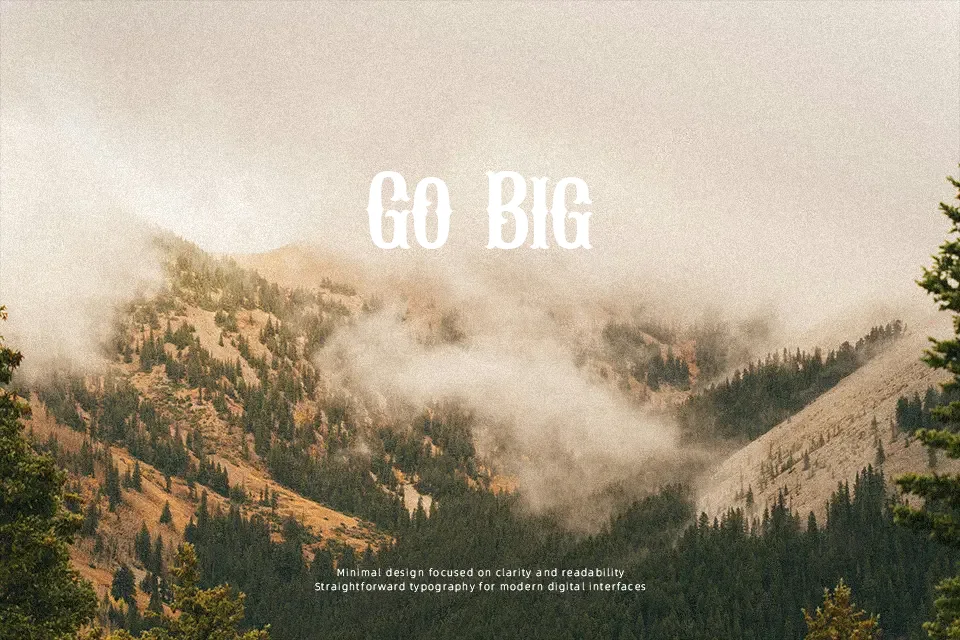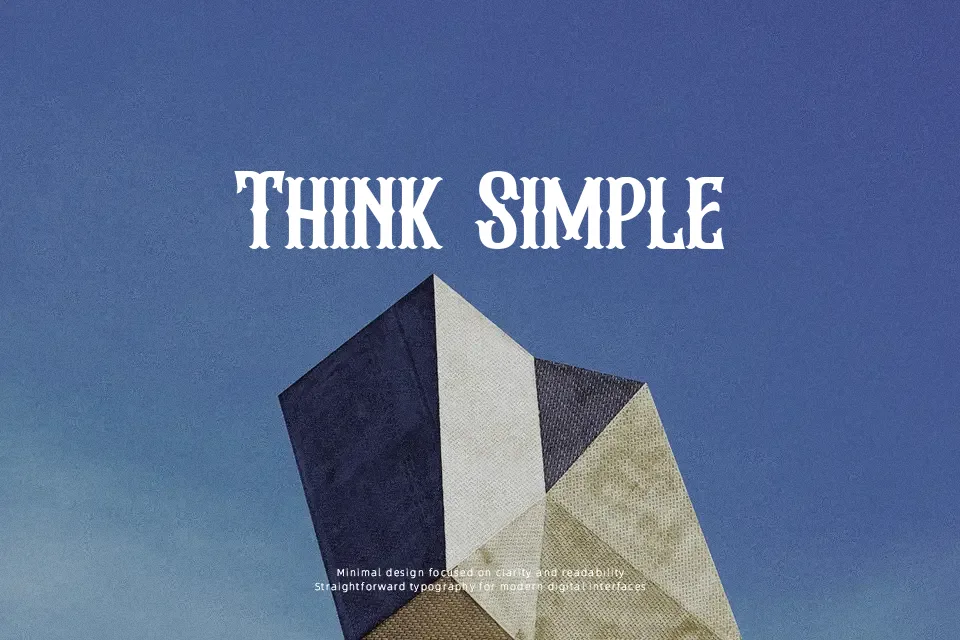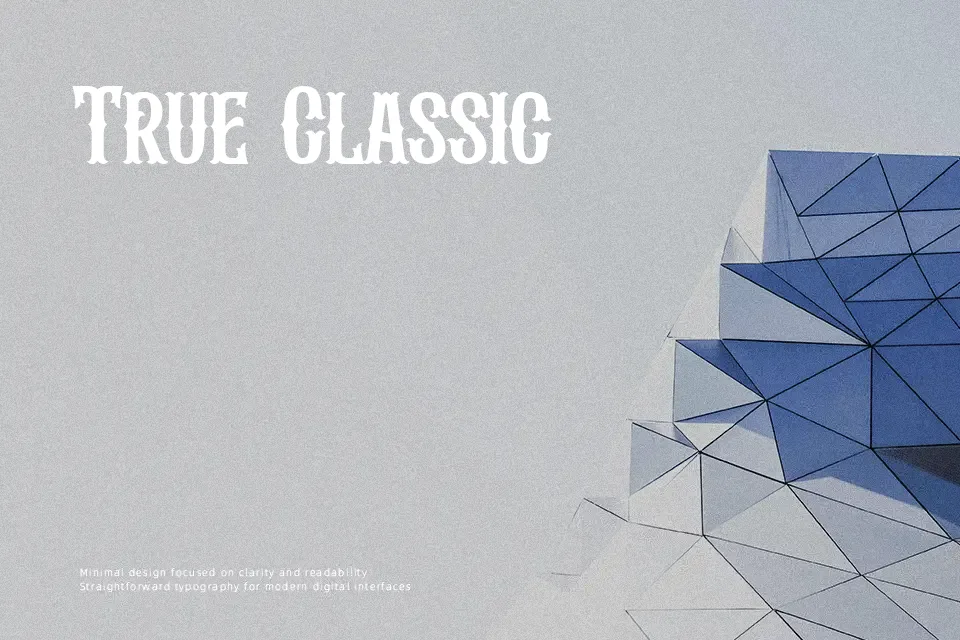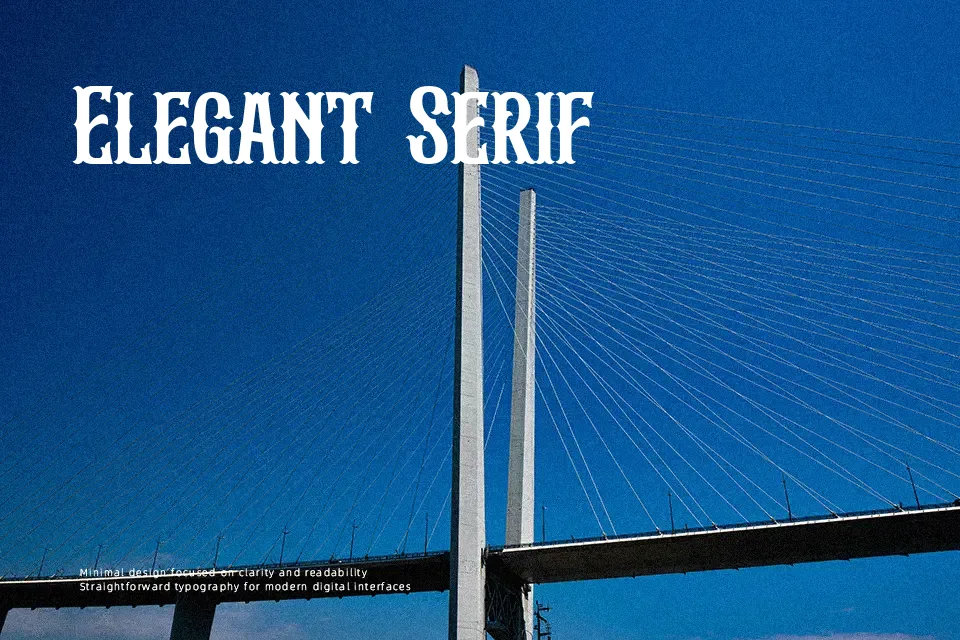
Albertson Font
Albertson carries the weight of hand-lettered Western tradition in every stroke — thick serifs, slightly condensed caps, and deliberate character variation give it a grounded, old-world confidence. The font ships with four stylistic alternate sets, letting designers mix letterforms for a less uniform, more artisanal typographic texture. It fits naturally in label design, brand identities with a vintage or rugged bent, product packaging for crafted goods, and poster-style headlines. That said, Albertson is strictly all-caps, which limits its versatility for body copy or mixed-case layouts. It also starts to feel out of place in clean, modern, or tech-forward contexts — the retro personality is strong and doesn’t dilute easily. Think of it as a statement typeface that earns its space when the concept matches its spirit.
Best For:- Craft beverage and food label headers
– Western or Americana brand logo design
– Vintage poster and signage typography
– Packaging for handmade or artisanal goods
Not Ideal For:- Body text or long-form reading layouts (all-caps only)
– Tech, SaaS, or minimalist brand identities
– Corporate reports or formal editorial design
– Mixed-case typographic compositions
Perfect for advertising, branding, and logo, with a bold and display style.